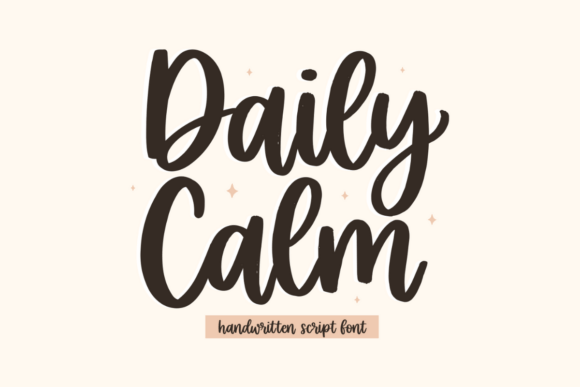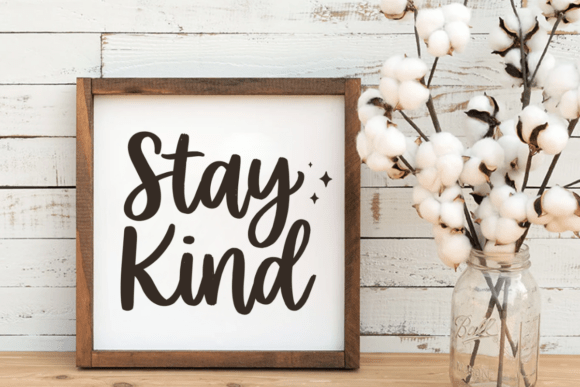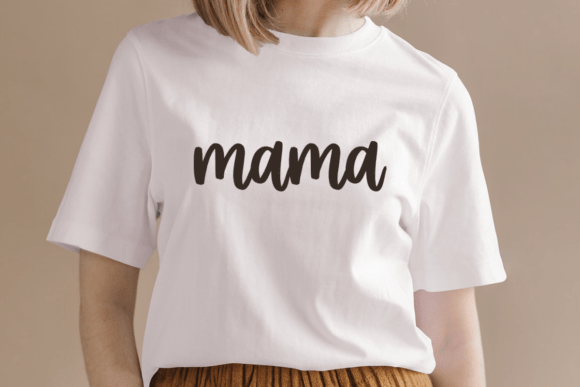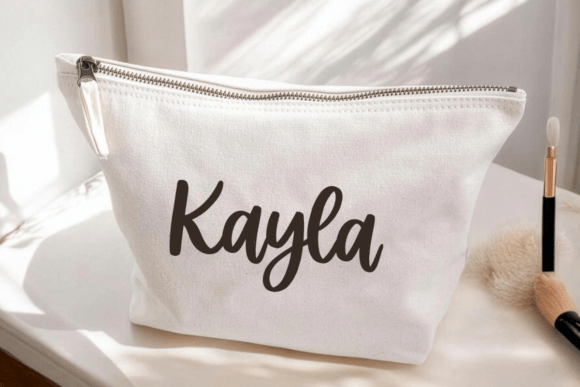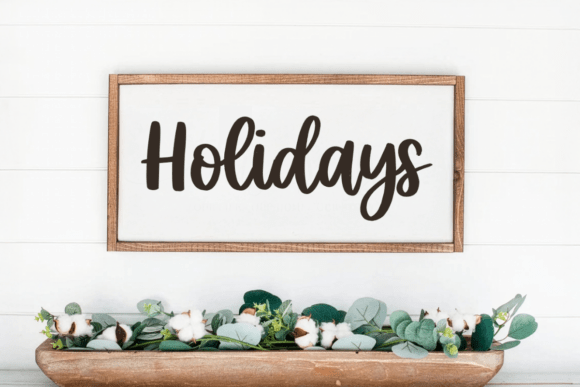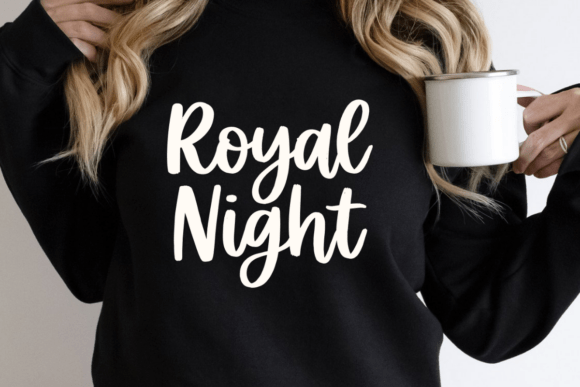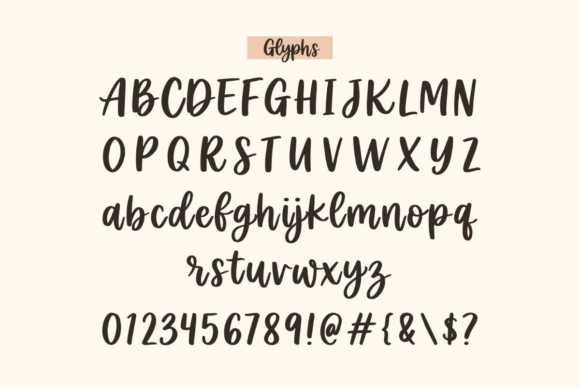
Daily Calm Font
Daily Calm is a beautifully flowing handwritten script font that embodies an authentic, relaxed, and cheerful energy, perfect for designs that need a personal, sincere touch.
The thick, brush-like strokes and smooth connections of the Daily Calm typeface give it a contemporary, high-impact presence while maintaining a cozy, inviting aesthetic. This versatile script font is an essential asset for branding cozy cafes, crafting inspirational social media quotes, designing vibrant merchandise, and creating friendly, eye-catching labels or packaging for artisan goods.
The bold weight ensures excellent visibility at a glance, allowing the Daily Calm font to convey a confident yet approachable message, making it a favorite for lifestyle blogs, personalized stationery, and any project where a genuine, happy vibe is key.